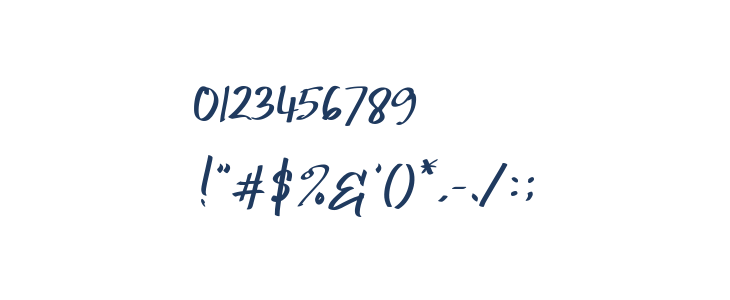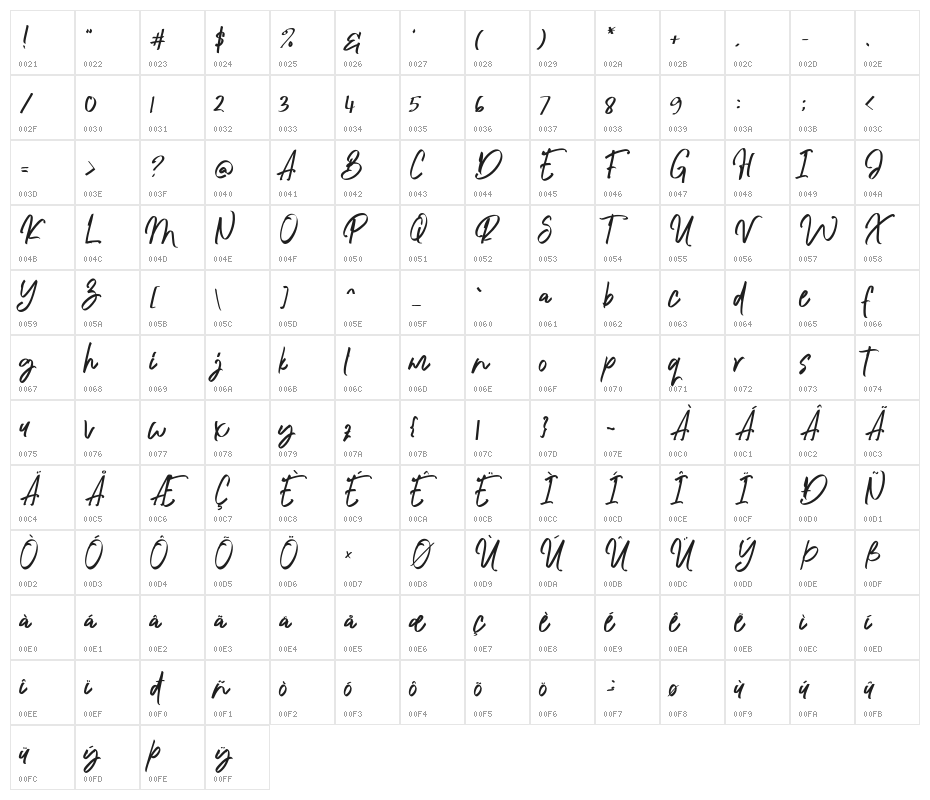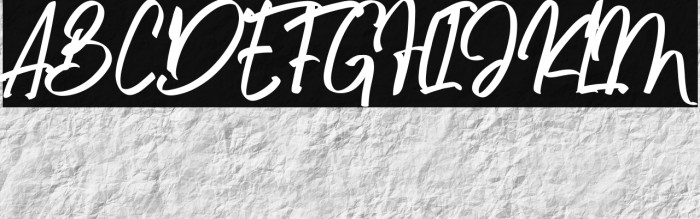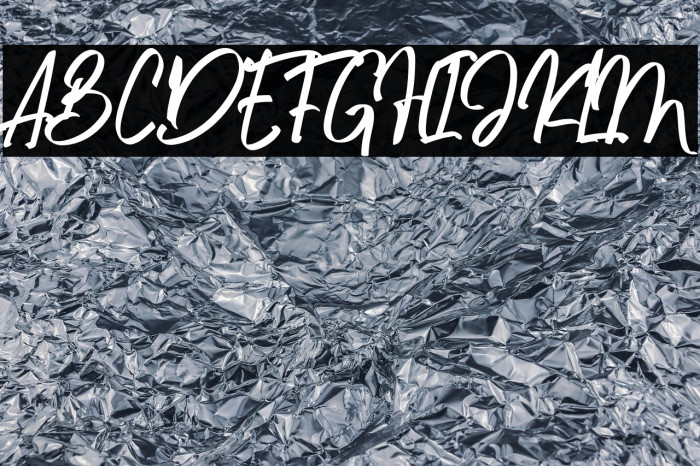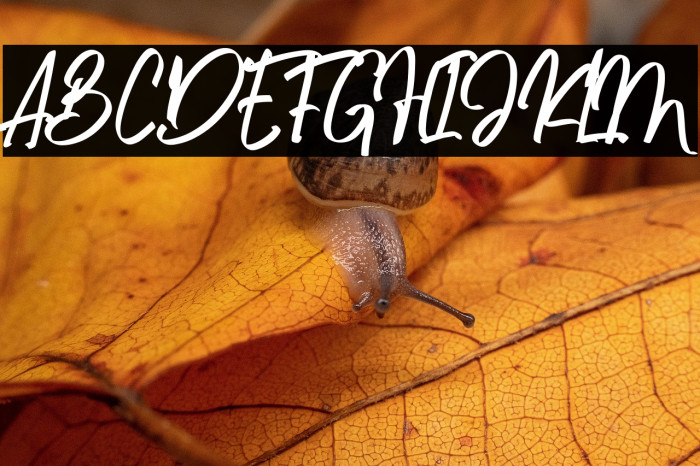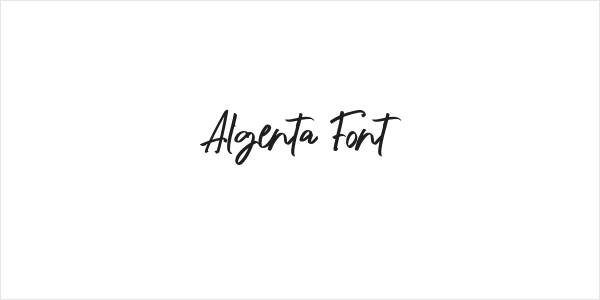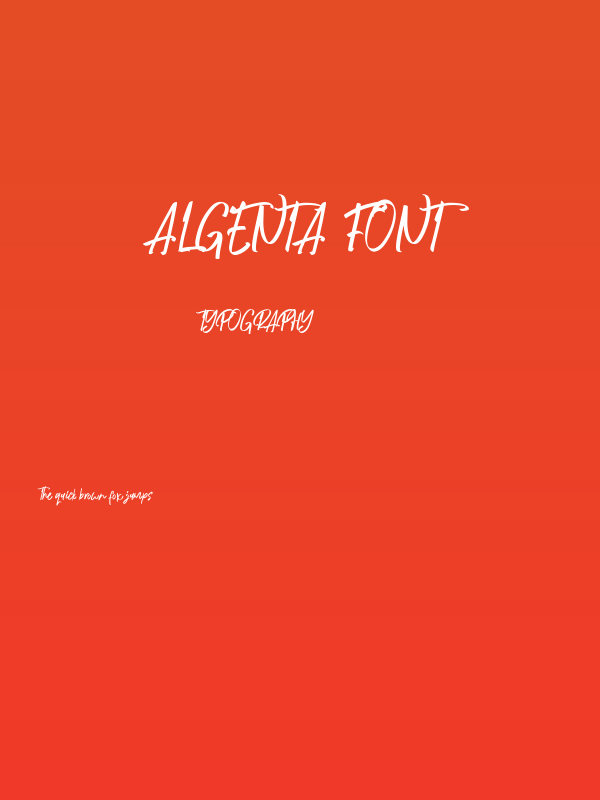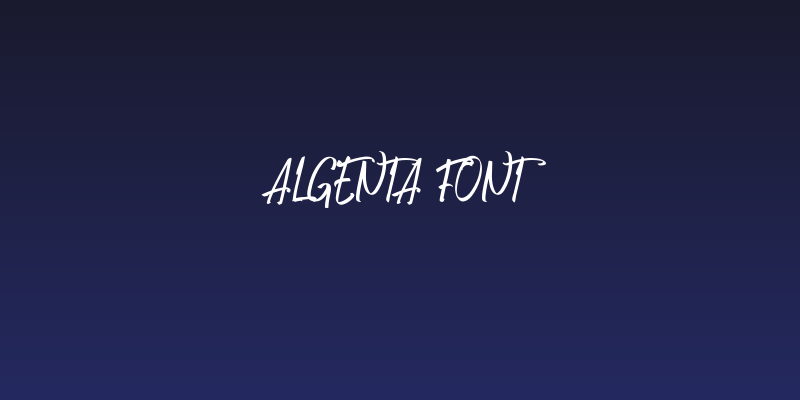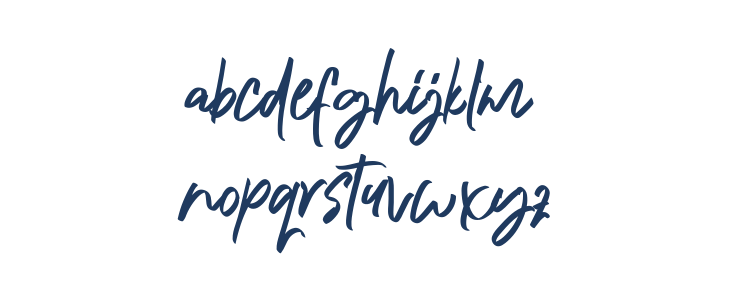
Algenta Font Font
Algenta Font Description
This font exudes a lively and dynamic energy with its flowing, cursive script style. The letters are interconnected, creating a sense of continuity and movement. The strokes are bold and expressive, with varying thickness that adds a touch of elegance and flair. The uppercase letters are particularly striking, with dramatic loops and swirls that make a statement. The lowercase letters maintain the same fluidity, offering a harmonious balance. Numbers and special characters are crafted with the same attention to detail, ensuring consistency across the board. This font is perfect for projects that require a personal, handwritten touch.